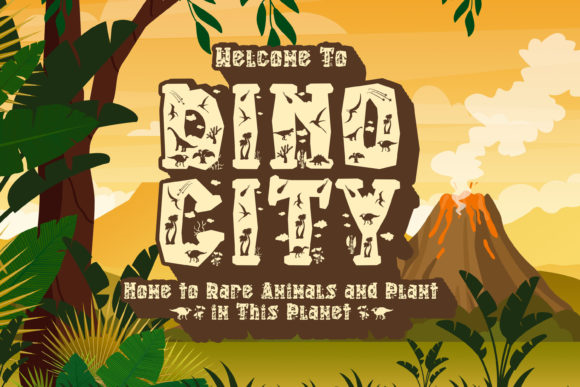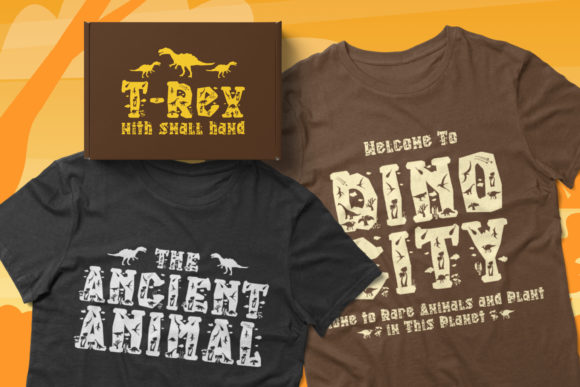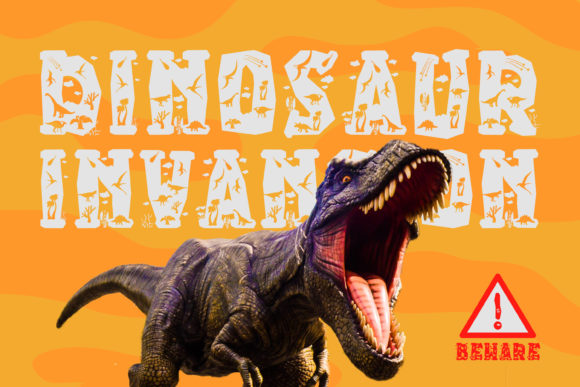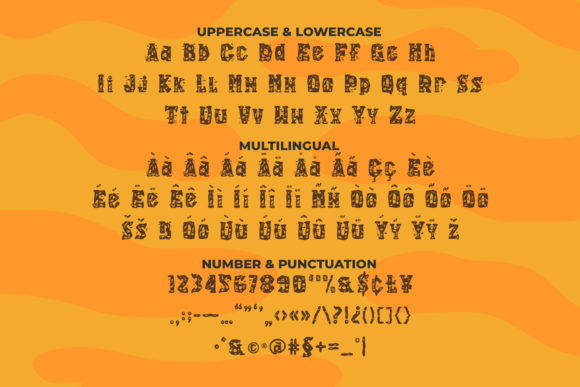
Introduction to Saurus Font
Have you ever found yourself staring at a blank canvas, desperate for the perfect font to bring your creative project to life? For many designers, this is a moment of truth – the moment when the entire design comes together, and the final product is nothing short of magic. For me, that moment came when I stumbled upon the enchanting Saurus Font, and I knew I had to share it with the world.
With its unique, mystical aesthetic, the Saurus Font is a game-changer for designers looking to add a touch of medieval charm to their designs. Whether you’re working on a poster, flyer, or any other creative project, this font is sure to transport your audience to a world of wonder and awe. And the best part? It’s available for free download, making it an accessible design resource for creatives of all levels.
Key Features of Saurus Font
- High-quality font design suitable for creative projects, making it an ideal design resource.
- Features a large character set, including Latin and Cyrillic scripts, making it suitable for multilingual projects.
- Designed with a unique and modern style, making it an excellent choice for designers looking for a distinctive font for their creative project.
Honest Review: Saurus Font
As a designer, I’m always on the lookout for high-quality fonts that can elevate my creative projects. Recently, I had the chance to work with the Saurus Font, and I’m excited to share my honest review.
- High-quality design: The Saurus Font is beautifully crafted with a lot of attention to detail, making it perfect for professional projects.
- Limited font styles: While the font is beautiful, it’s a bit limited in terms of font styles and weights.
Overall, I’m impressed with the Saurus Font’s quality and design. While it has some limitations, it’s still a great resource for designers working on personal projects or looking for a free font download. If you’re a designer looking for a high-quality, free font, the Saurus Font is definitely worth checking out.
Saurus Font
Tips for Getting the Most Out of Saurus Font
To get the most out of Saurus Font, use it on a transparent background to create a modern and sleek design. Experiment with different font sizes and styles to add visual interest to your project. The Saurus Font is a high-quality design resource that can help you take your creative project to the next level.
The Saurus Font is a versatile design resource that can be used for a variety of creative projects, including logos, brochures, business cards, and more. It’s a great addition to any design resource library and can be used for personal or commercial projects.